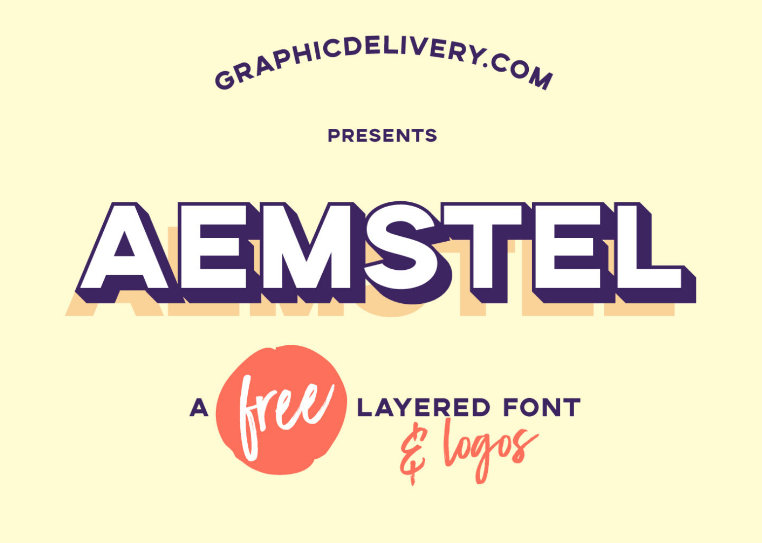
Aemstel Font Family
Introduce to you a display font family. Introducing Aemstel Font Family! Aemstel was designed by Vlad Cristea. Aemstel is a versatile san serif font that comes in 5 styles: Regular, Line Inside, Line Outside, Horizontal Line and Shadow. The typeface works is an exellmletn choose for small text sizes, books and magazines, branding, posters, as well as web and screen design…